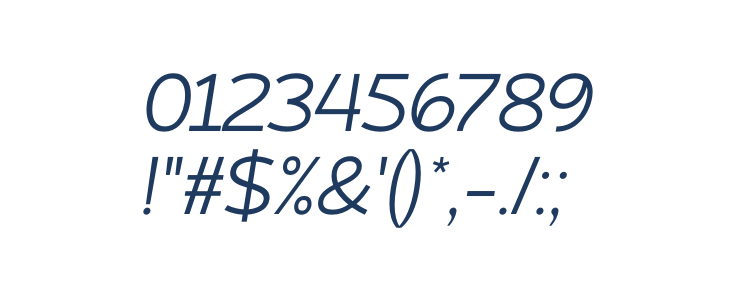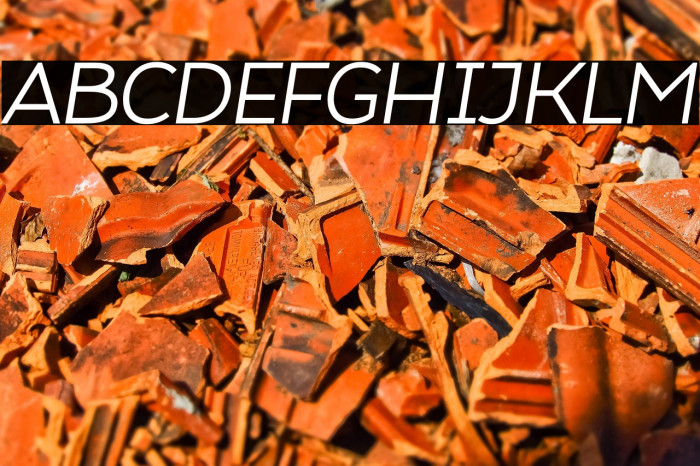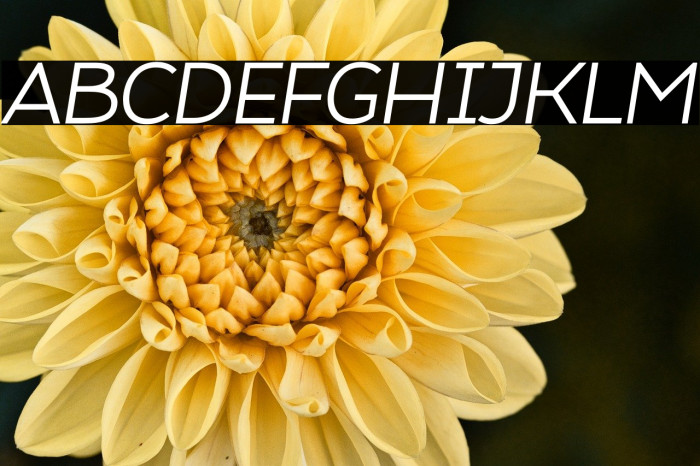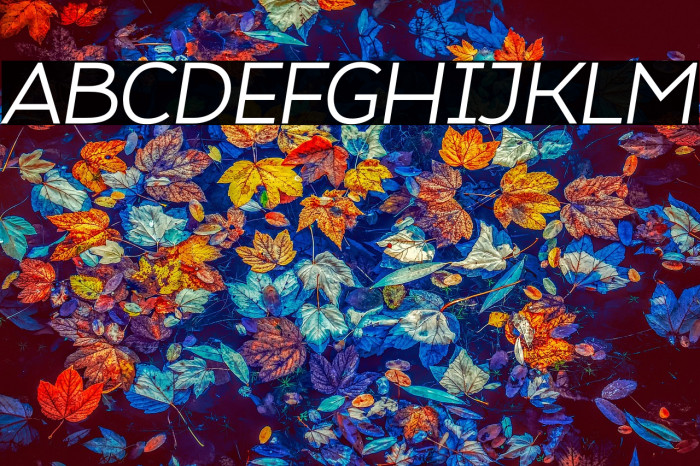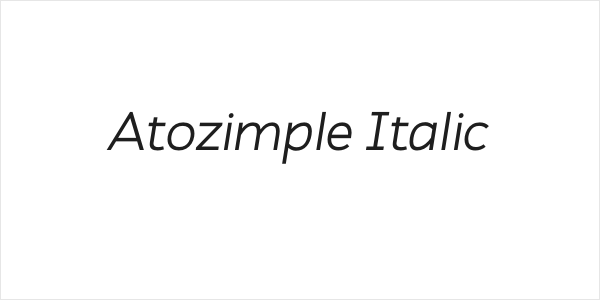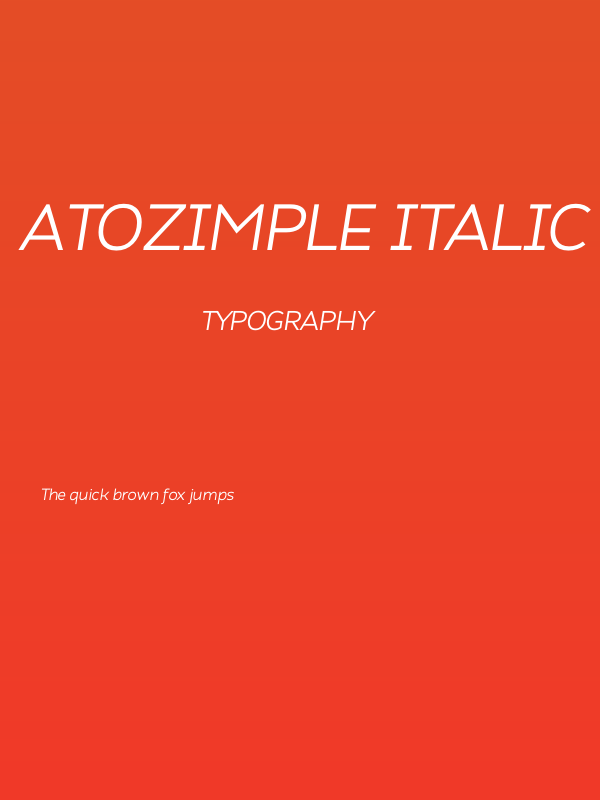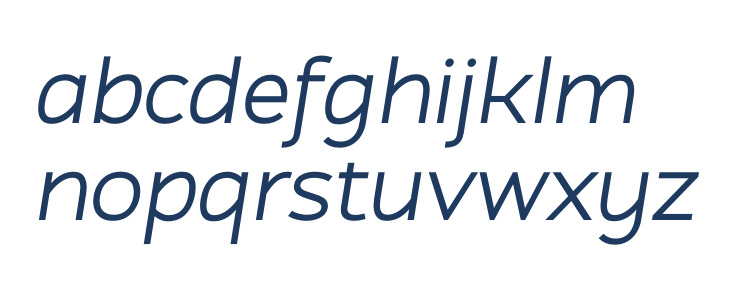
Atozimple Italic Font
Atozimple Italic Description
This font features a sleek and modern design with a slight italic slant, giving it a dynamic and forward-moving appearance. The characters are clean and well-defined, with a consistent stroke width that maintains readability across various sizes. The uppercase and lowercase letters are proportionate, and the numerals are clear and distinct. Special characters are included, enhancing its versatility for different types of content. The overall look is contemporary and professional, making it suitable for a wide range of applications.
| Proposed Projects | Ideal for branding, advertising, digital content, and editorial design where a modern and sleek appearance is desired. |